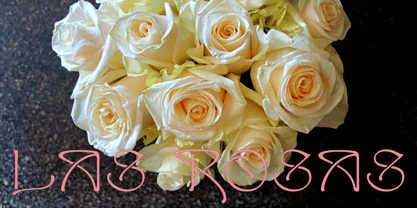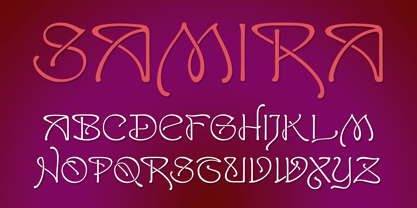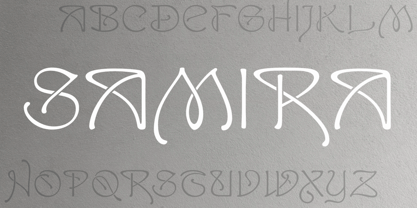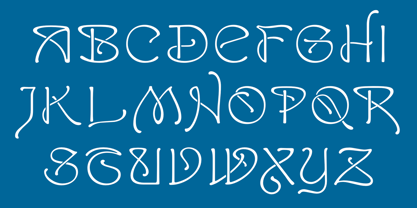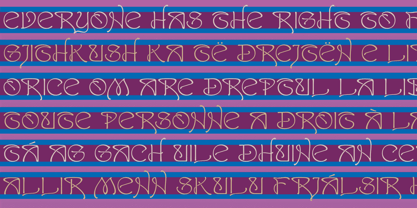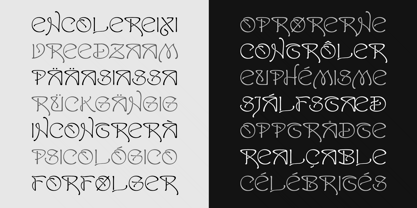
Samira
Samira™
by CastleType
Samira Font Family was designed by Jason Castle and published by CastleType. Samira contains 1 styles.
I must admit that I am not a big fan of the Art Nouveau style. However, I found this particularly beautiful alphabet and decided to use it as the basis for this new font. Very graceful, elegant, and dare I say, organic. Includes some intertwined ligatures. Complete uppercase, numerals, basic punctuation. Supports most Western European languages.
Designers: Jason Castle
Publisher: CastleType